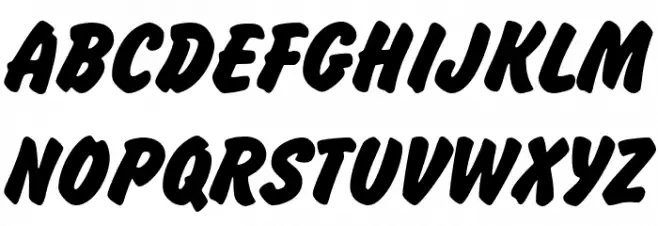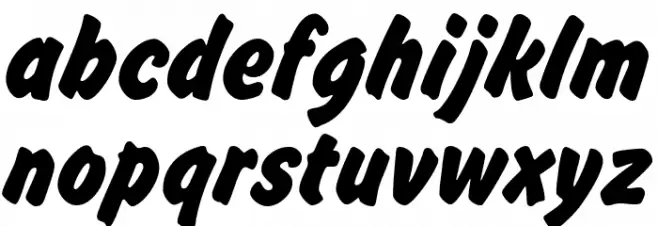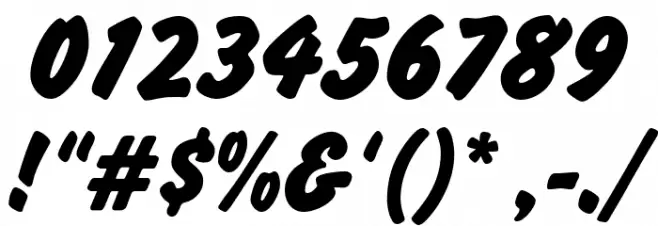
Brush Hand New Font
© 2013 www.k-type.com " Brush Hand New is a redrawing of Brush Hand, a 1990s font that improved Flash Bold by smoothing, lightening the weight and increasing legibility. The New version refines the outlines, spacing, kerning and adds characters.